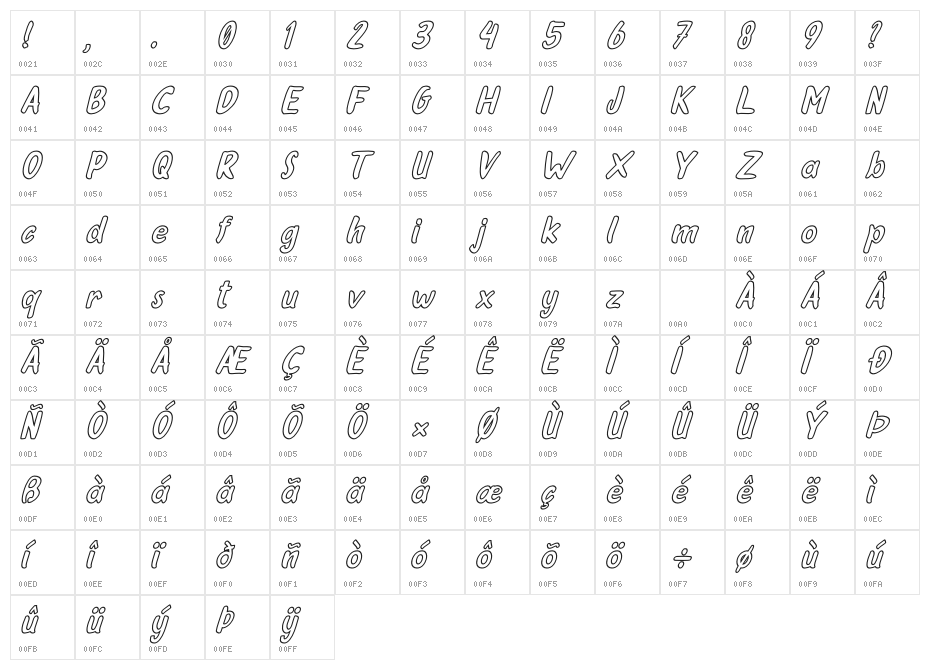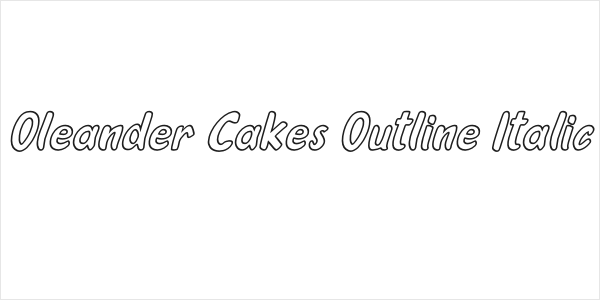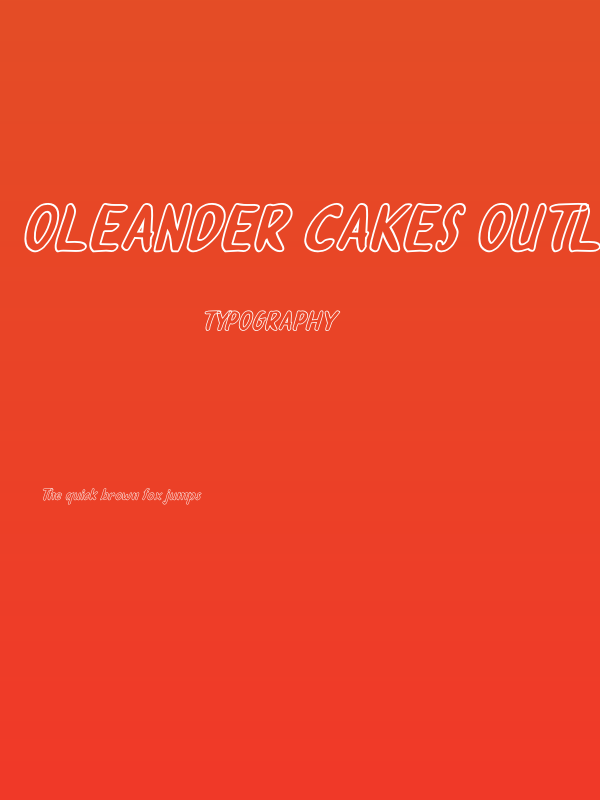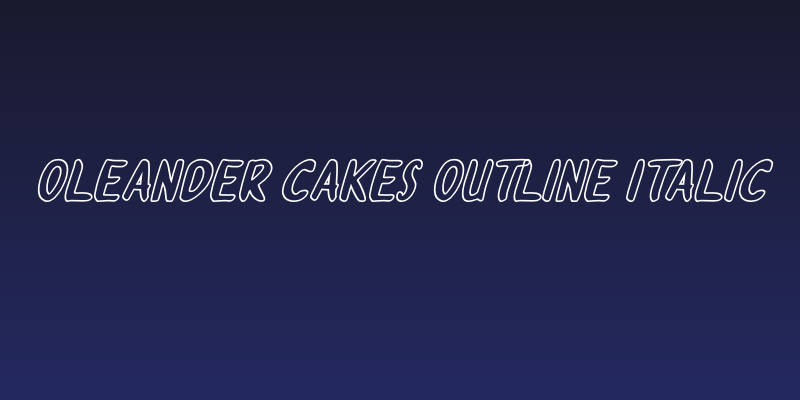
Oleander Cakes Outline Italic Font
Oleander Cakes Outline Italic Description
This font features a playful and dynamic outline style with a slight italic slant, giving it a sense of movement and energy. The characters are bold and rounded, with a consistent thickness throughout the strokes, creating a cohesive and visually appealing look. The uppercase and lowercase letters maintain a uniform style, while the numbers and special characters complement the overall design. This font's outline nature makes it stand out, ideal for creative and eye-catching projects.
| Overall Style | Playful, Modern |
| Proposed Projects | Ideal for posters, children's book covers, playful branding, and creative invitations. |